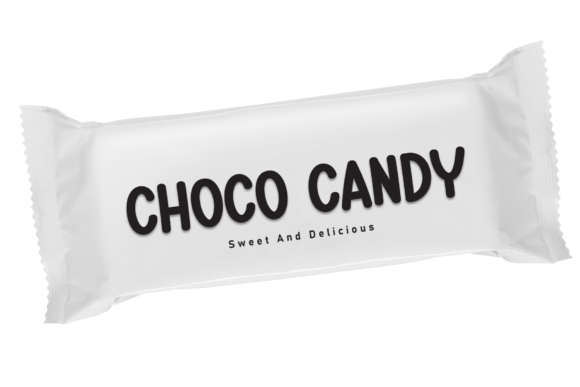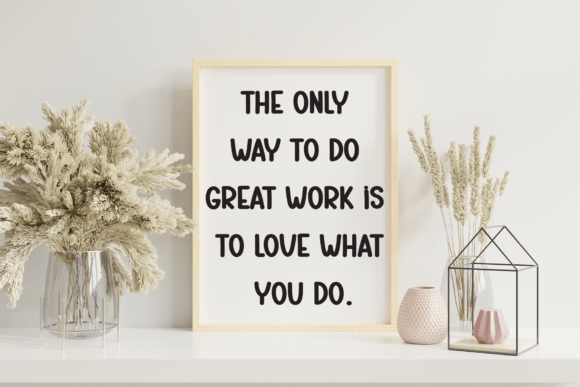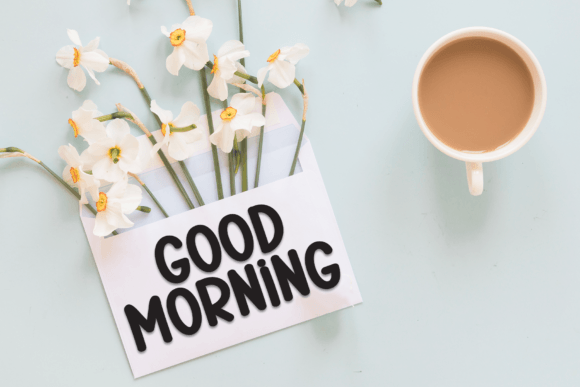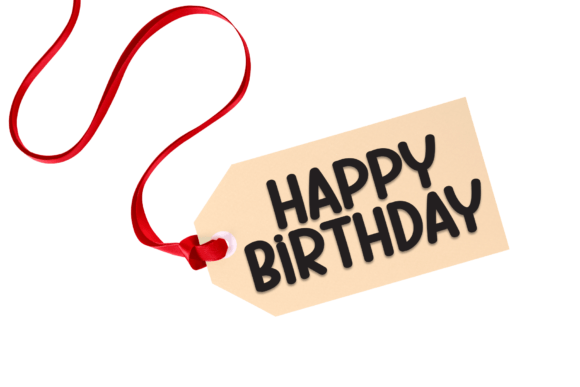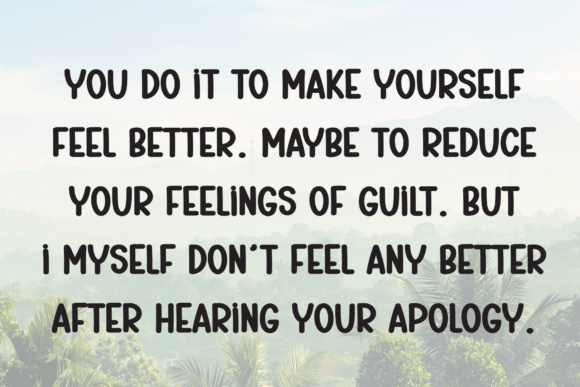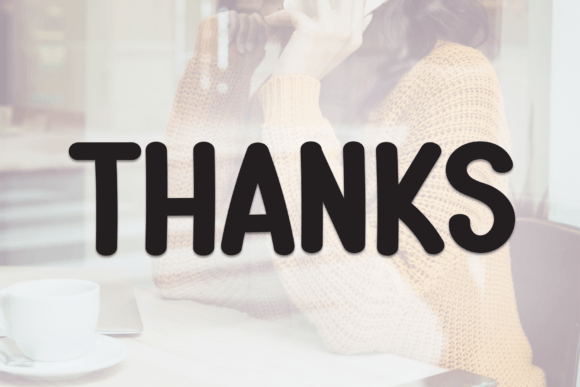
Coffee Break Font: The Perfect Addition to Your Design Arsenal
Are you a designer or crafter looking for a font that can add a touch of warmth and personality to your projects? Look no further than the Coffee Break Font! This sweet and friendly handwritten font is perfect for a wide range of designs, from branding and packaging to invitations and crafts. In this article, we’ll take a closer look at the Coffee Break Font, its features, and how you can use it to take your designs to the next level.
What is Coffee Break Font?
Coffee Break Font is a beautiful, handwritten font that is designed to bring a sense of friendliness and approachability to your designs. Its natural and unique style makes it incredibly versatile, and it’s perfect for a wide range of projects. Whether you’re creating a logo, a brochure, or a social media graphic, the Coffee Break Font is sure to add a touch of warmth and personality to your design.
Features of Coffee Break Font
So, what makes the Coffee Break Font so special? Here are just a few of its key features:
- Handwritten style: The Coffee Break Font has a beautiful, handwritten style that is perfect for adding a touch of personality to your designs.
- Natural and unique: The font’s natural and unique style makes it incredibly versatile, and it’s perfect for a wide range of projects.
- Easy to read: Despite its handwritten style, the Coffee Break Font is easy to read, even at small sizes.
- Highly legible: The font’s clear and legible design makes it perfect for use in a wide range of applications, from body text to headings.
Uses for Coffee Break Font
So, what can you use the Coffee Break Font for? The possibilities are endless! Here are just a few ideas to get you started:
- Branding and packaging: Use the Coffee Break Font to create a unique and memorable brand identity that will set you apart from the competition.
- Invitations and events: The font’s friendly and approachable style makes it perfect for use in invitations, wedding stationery, and other event materials.
- Crafts and DIY projects: Add a touch of personality to your crafts and DIY projects with the Coffee Break Font.
- Social media graphics: Use the font to create eye-catching social media graphics that will help you stand out from the crowd.
Tips for Using Coffee Break Font
Here are a few tips for getting the most out of the Coffee Break Font:
- Use it with a clear background: The Coffee Break Font looks best when used with a clear background, so try pairing it with a simple color or texture.
- Experiment with different sizes: The font looks great at a wide range of sizes, so don’t be afraid to experiment and find the perfect size for your project.
- Pair it with other fonts: The Coffee Break Font pairs well with a wide range of other fonts, so try combining it with a bold font for headings or a clean font for body text.